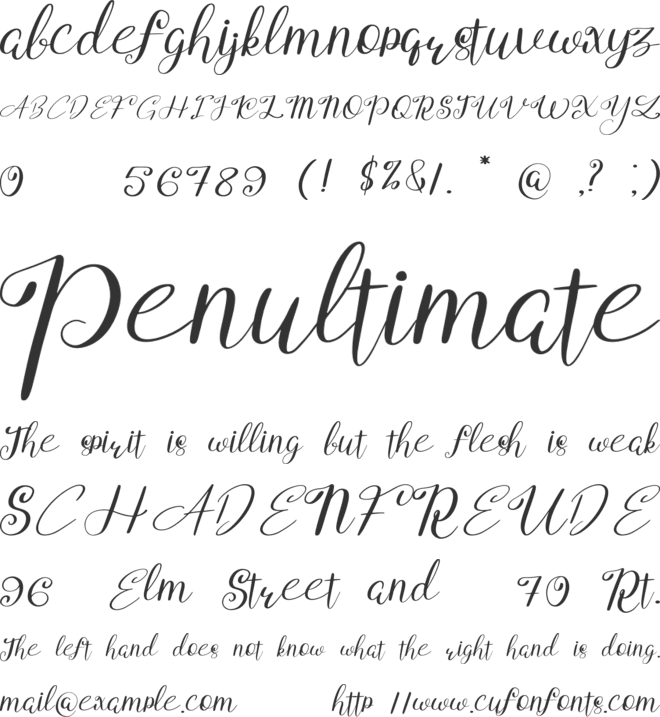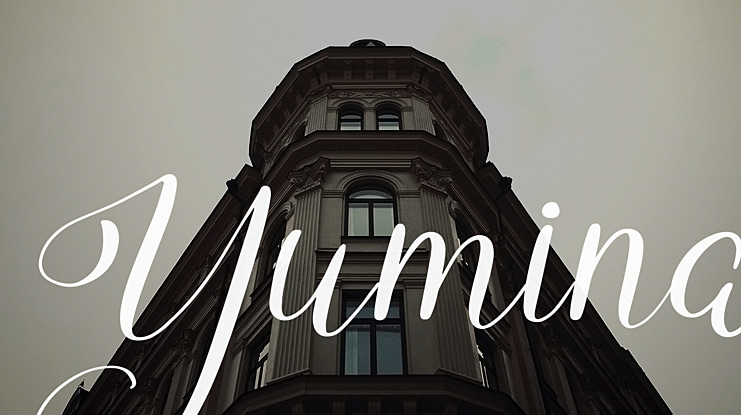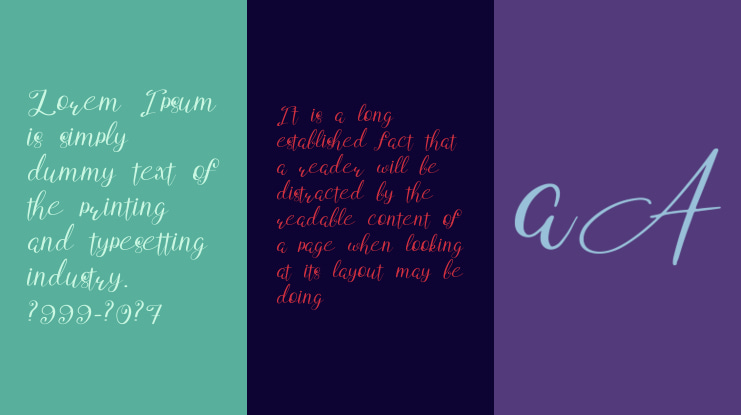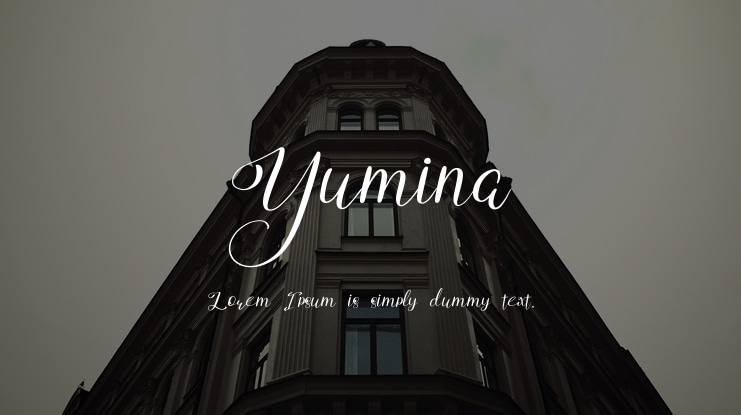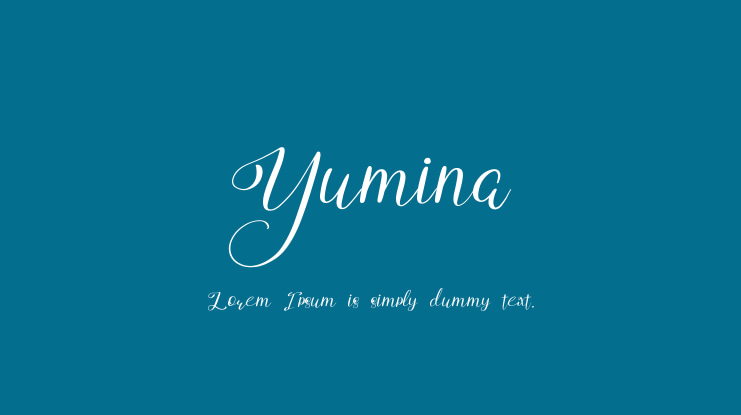
Yumina Font
Introducing the lovely script Yumina font!
Very suitable for greeting cards, branding materials, business cards, quotes, posters, and more!
Yumina has more than 249 glyph!!